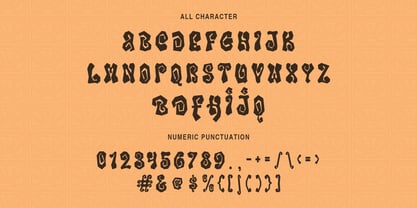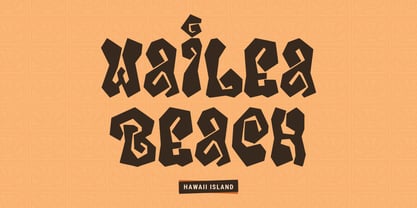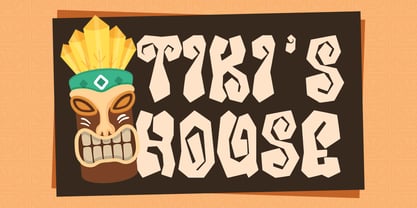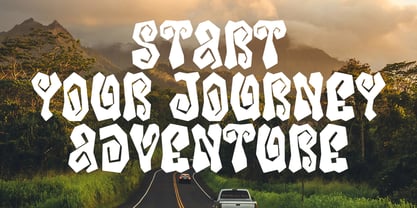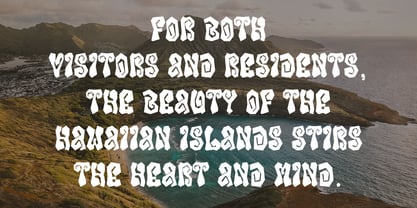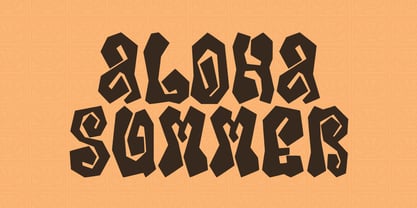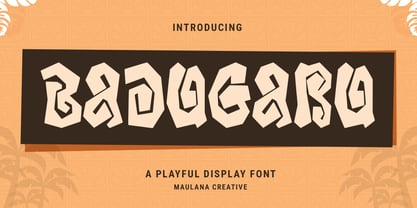
MC Badugaru
by Maulana Creative
The MC Badugaru Font Family was designed by Gilang Maulana and published by Maulana Creative. MC Badugaru contains 1 styles. More about this family
Badugaru is a playful style display font. Fun character with a bit of alternates. To give you an extra creative work. Badugaru playful font support multilingual more than 100+ language. This font is good for logo design, Social media, Movie Titles, Books Titles, a short text even a long text letter and good for your secondary text font with sans or serif. Make a stunning work with Badugaru font.
Designers: Gilang Maulana
Foundry: Maulana Creative